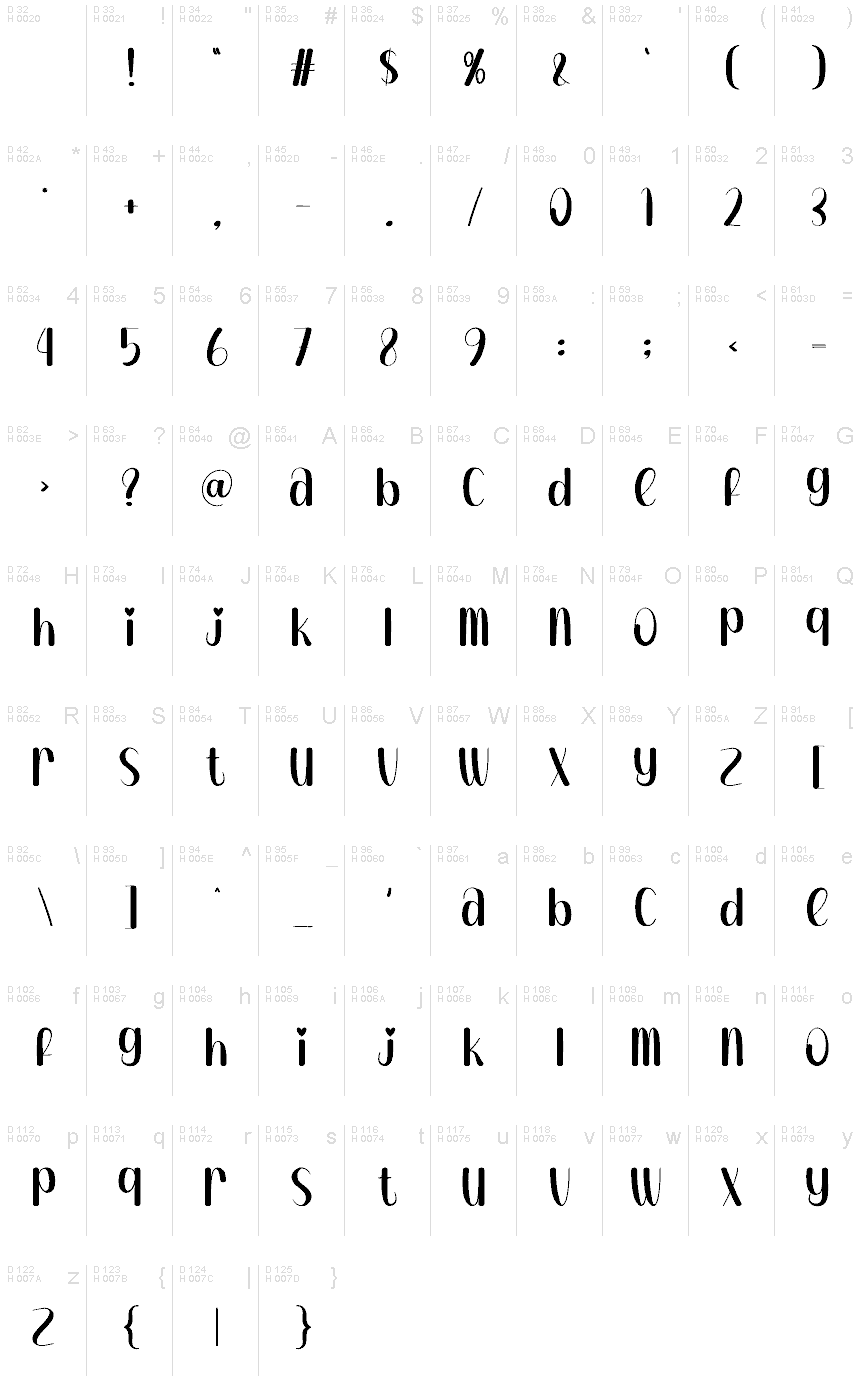
Opacity
Opacity font by Andi Moz is an expressive and quirky calligraphy font. With an eye-catching, decorative, and whimsical style, this modern-retro typeface brings a unique touch to every design. Its smooth curvy lines creep in different directions keeping the readability high while its artistic letters stand out and mark every text presented.